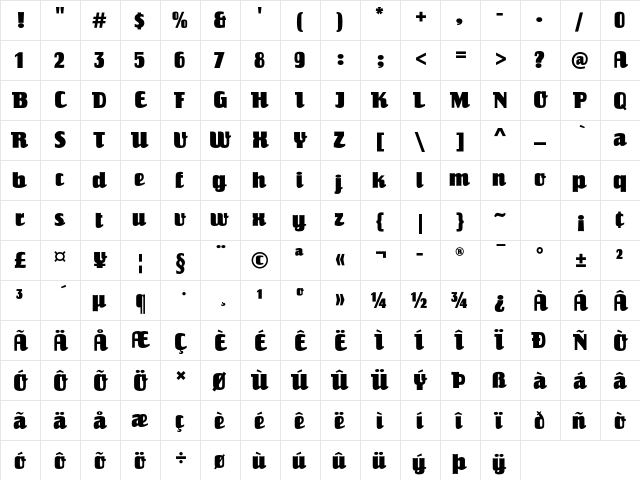
Einhorn Std Regular
| Designer | Alan Meeks |
Design Context for Einhorn Std Typeface
Einhorn Std is a composed and adaptable typeface that performs quietly and consistently across a wide range of design contexts.
Pro Tip: Pair Einhorn Std with a font of contrasting weight or personality to build a more expressive typographic hierarchy.